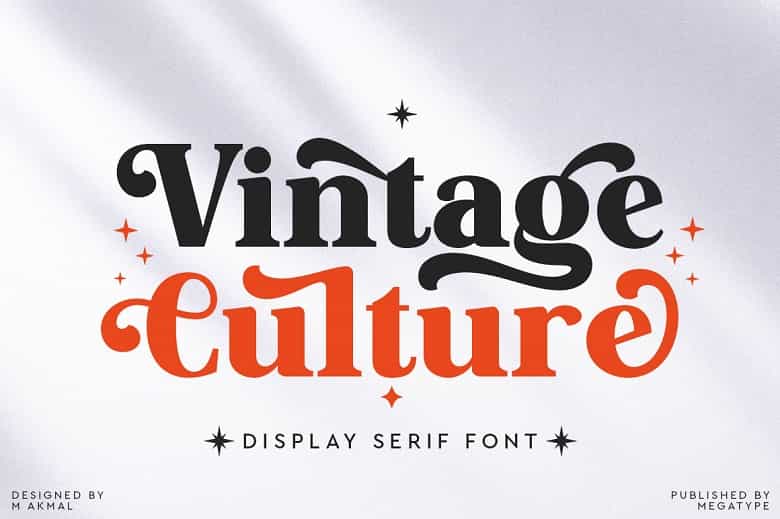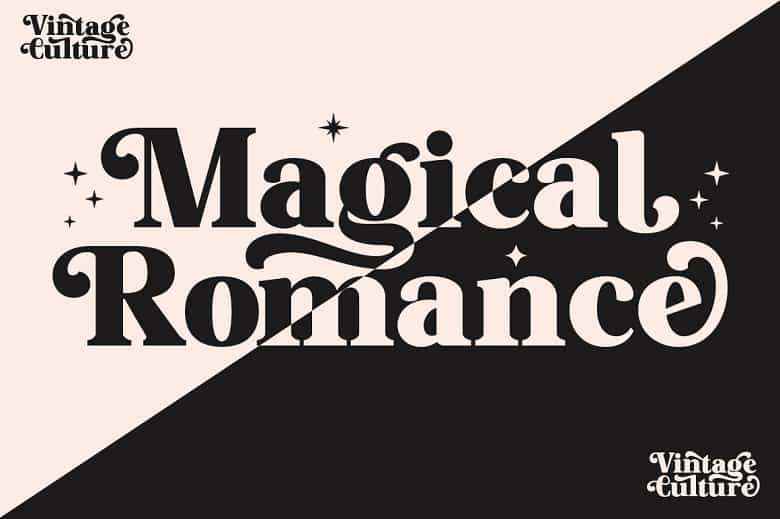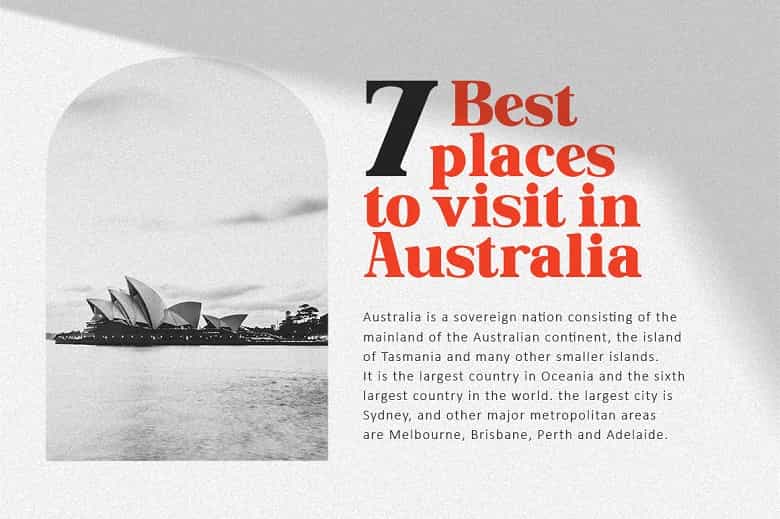
Vintage Culture is a playful and highly customizable display serif font family with 192 glyphs and 42 ligatures to make any design you like. All the characters of Vintage Culture are designed with the help of OpenType features and the font also has ligatures, alternatives for letters, numeric values and punctuations and also supports other languages.